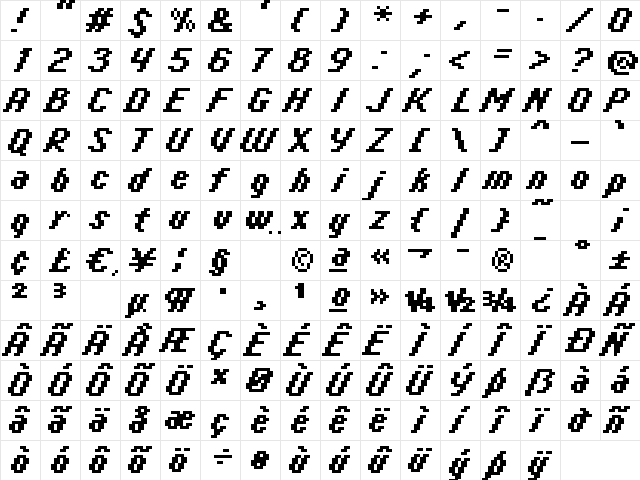
italic 08_65 Regular
| Foundry | Adobe Systems Incorporated |
| Designer | Craig Kroeger |
Design Context for italic 08_65 Typeface
italic 08_65 offers clean, dependable letterforms without strong stylistic allegiance, making it a practical choice for designers who need flexibility. The dynamic lean of this cut emphasises speed and emphasis in any layout.
Pro Tip: Use italic 08_65 for emphasis, pull quotes, and subheadings where its slanted energy can add rhythm to the layout.